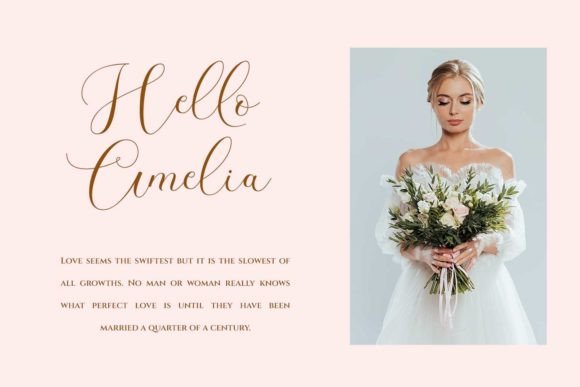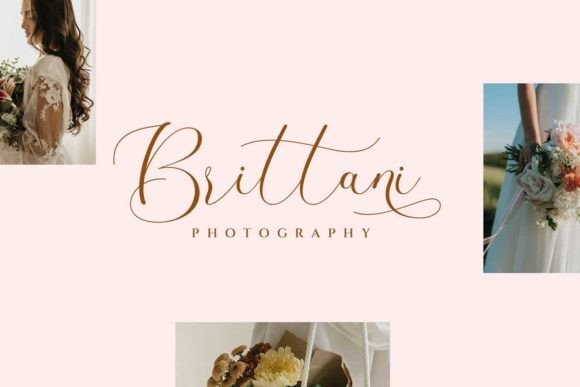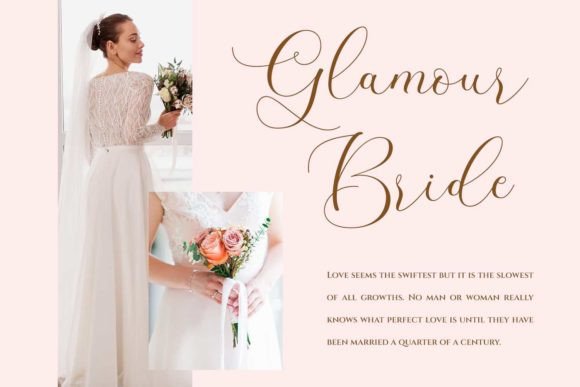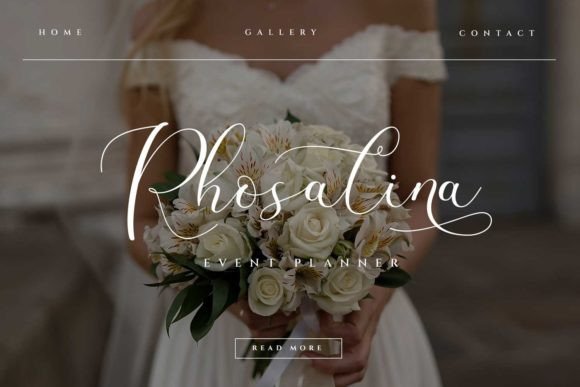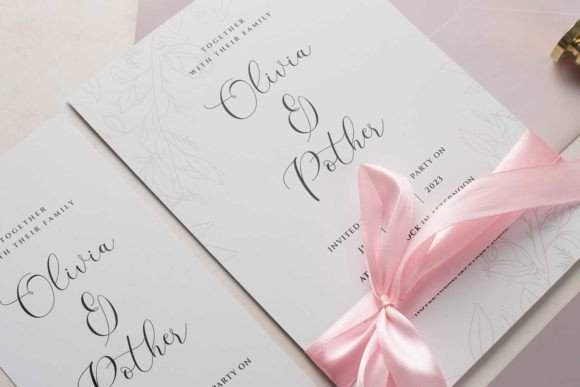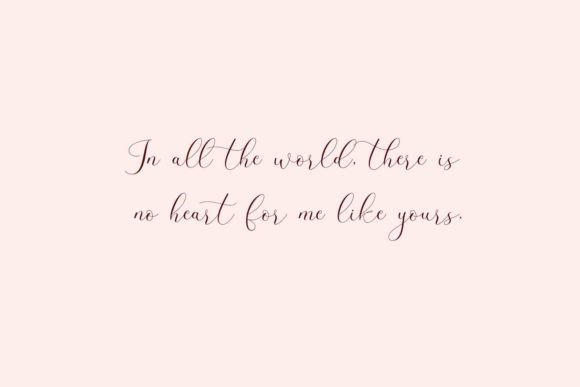
Introducing Dear Shinta Font: Elevate Your Designs with Modern Elegance
In the world of typography, a font can make or break a design. For designers and crafters seeking to add a touch of sophistication and beauty to their projects, Dear Shinta font is a game-changer. This stylish script font embodies modern elegance, making it perfect for a wide range of applications, from branding and logos to wedding invitations and more.
The Essence of Dear Shinta Font
Dear Shinta font boasts fluid letterforms and graceful strokes that exude refinement and allure. Its unique design creates a sense of movement and fluidity, making it perfect for designs that require a touch of dynamism. Whether you’re working on a luxury brand’s logo or a wedding invitation, Dear Shinta font adds a level of sophistication that’s hard to match.
Dear Shinta font is a versatile typeface that’s suitable for a wide range of design projects. Its modern elegance makes it perfect for:
- Branding: Create a lasting impression with Dear Shinta font, perfect for logos, business cards, and corporate identity designs.
- Wedding Invitations: Add a touch of romance and sophistication to your wedding invitations, save-the-dates, and other stationery designs.
- Logos: Create a unique and memorable logo for your business or brand with Dear Shinta font.
- Packaging: Elevate your packaging designs with Dear Shinta font, perfect for luxury brands and high-end products.
Why Choose Dear Shinta Font?
So, what sets Dear Shinta font apart from other script fonts? Here are just a few reasons why designers and crafters love this typeface:
- Timeless Appeal: Dear Shinta font has a timeless quality that ensures your designs will remain stylish for years to come.
- Versatility: This font is suitable for a wide range of design projects, from elegant wedding invitations to luxury brand logos.
- Elegance: Dear Shinta font exudes sophistication and beauty, making it perfect for designs that require a touch of refinement.
Tips for Using Dear Shinta Font
To get the most out of Dear Shinta font, here are a few tips to keep in mind:
- Pair with contrasting fonts: Combine Dear Shinta font with a contrasting font to create visual interest and hierarchy in your design.
- Use for headlines and titles: Dear Shinta font is perfect for headlines and titles, where its elegant strokes and fluid letterforms can shine.
- Experiment with colors: Try pairing Dear Shinta font with different colors to create a unique and eye-catching design.
Dear Shinta font is a stylish script font that captures the essence of modern elegance. Its fluid letterforms and graceful strokes create a sense of sophistication and beauty, making it perfect for a wide range of design projects. Whether you’re a designer or crafter, Dear Shinta font is a must-have for anyone seeking to add a touch of refinement and allure to their designs. With its timeless appeal, versatility, and elegance, Dear Shinta font is sure to become a favorite in your typography collection.